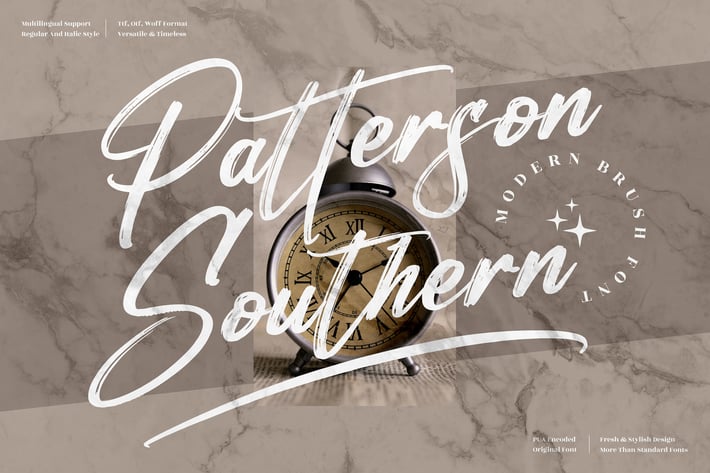
Patterson Southern Brush Font
Patterson Southern is a modern brush font that blends energetic strokes with refined charm. Its bold yet graceful brush lettering creates a perfect balance between sophistication and creativity. Designed to evoke emotion and personality, this typeface brings a hand-painted authenticity to every design it touches.
Whether used for branding, invitations, posters, or social media, Patterson Southern adds a timeless, handcrafted touch that makes your text stand out beautifully.
Modern brush script style
Uppercase & lowercase letters
Numbers, punctuation & symbols
Make your words flow with expressive energy — Patterson Southern delivers a modern brush style full of warmth, motion, and elegance.